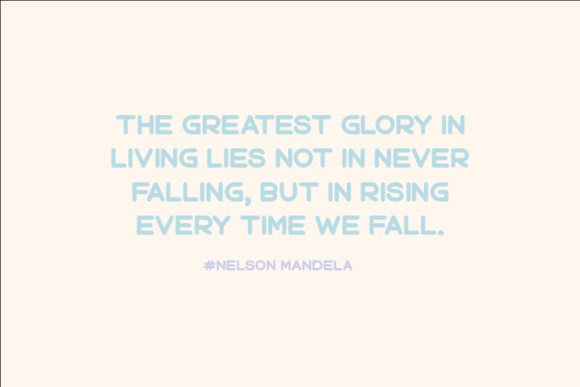
Artitude Font
Artitude Font by Goliatte 15,027 downloads
Artitude Font
Artitude Sans Serif Font is a quirky and playful sans serif font. Whether you’re using it for crafts, digital design, presentations, or making greeting cards, this font has the potential to become your favorite go-to font, no matter the occasion.